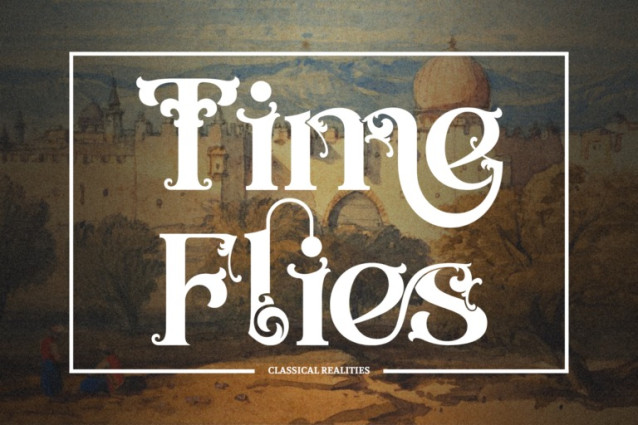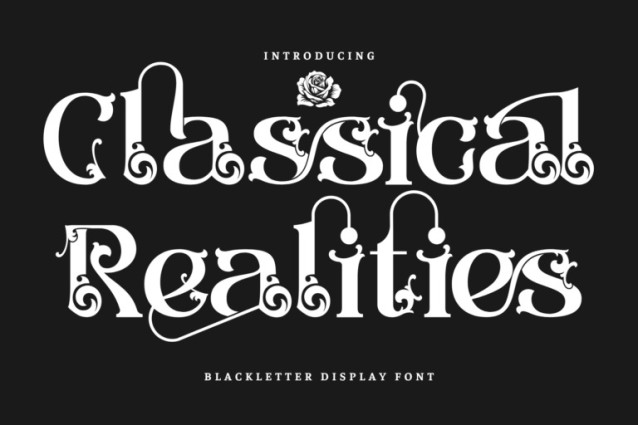
Classical Realities Font
Classical Realities Ligature Serif Font – An Ornamental Baroque Display Serif, a majestic and elaborately detailed ornamental serif font inspired by the grandeur of classical architecture and Baroque artistry. Every glyph in this typeface is adorned with swirling terminals and intricate flourishes, turning text into visual poetry. Classical Realities is perfect for editorial headlines, luxury branding, gothic fashion, theatrical posters, book covers, or any design that desires drama and decadence.
Uppercase & Lowercase Letters
~100 Special Ligatures & Stylistic Alternates
About 100 ligatures combined with Stylistic Alternates Font: